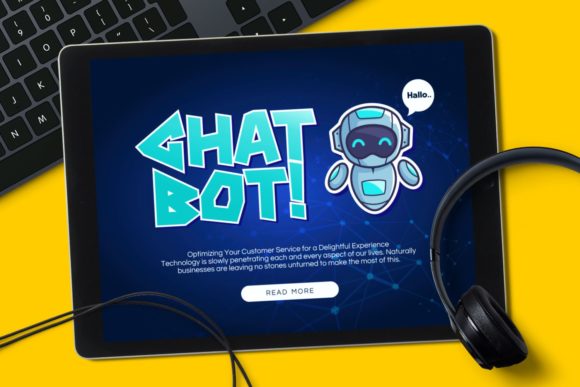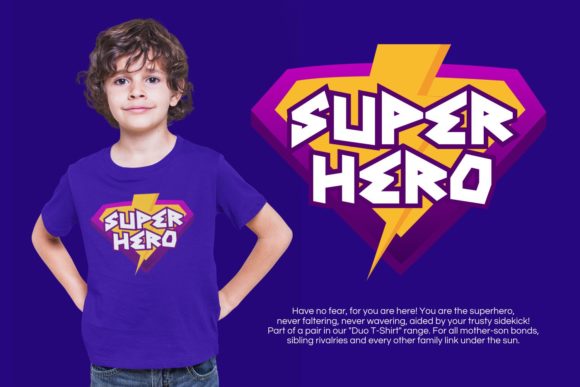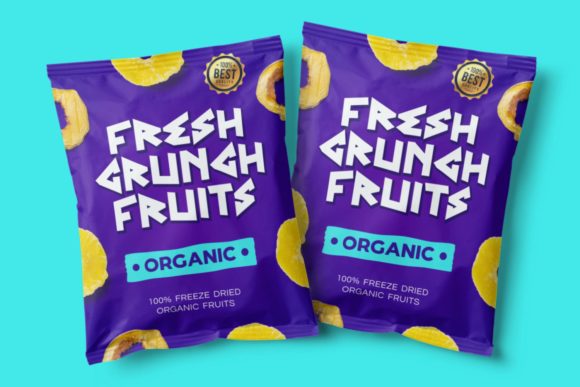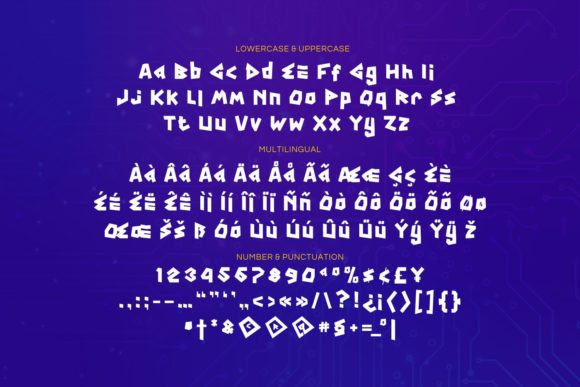
Introduction to Rhodas Font
As a designer, have you ever found yourself stuck in a creative rut, searching for the perfect font to bring your project to life? I know I have. That’s why I’m excited to share with you my latest discovery – the Rhodas Font. This chunky, bold display font is a game-changer for any designer looking to add a touch of whimsy and playfulness to their work.
Imagine a font that’s as fun as it is functional, with its cartoon-like charm and high-quality design making it a valuable asset for any creative project. Whether you’re working on a children’s book, a logo for a family-friendly business, or a design resource for a kid’s website, Rhodas Font is sure to be a hit.
Key Features of Rhodas Font
- High-quality vector font designed for creative projects, available for free download.
- Unique, hand-drawn design with a transparent background, ideal for use in various design resources.
- Includes a comprehensive character set with over 500 glyphs, covering multiple languages.
- Perfect for use in logos, branding, packaging, and other creative projects where a distinctive, handwritten font is required.
Honest Review: Rhodas Font
As a designer, I’m always on the lookout for high-quality design resources that can elevate my creative projects. Recently, I stumbled upon the Rhodas Font, and I must say, it’s been a great addition to my design arsenal.
- Unique and stylish design: Rhodas Font has a distinctive look that sets it apart from other fonts. Its clean lines and modern feel make it perfect for a variety of creative projects.
- Transparent background: The font’s transparent background makes it easy to use in various design scenarios, from logo design to graphic design.
The only downside I’ve noticed is that the font may not be suitable for all types of projects. Its modern and minimalist design might not be the best fit for more traditional or conservative designs.
Overall, I’m impressed with the Rhodas Font. Its unique design and free download make it a valuable design resource for designers. While it may not be suitable for all projects, I think it’s a great addition to any designer’s toolkit.
Rhodas Font is a versatile design resource that can be used in a variety of creative projects, such as logos, business cards, and brochures. It’s also a great resource for designers who want to create a unique and eye-catching design.
Is Rhodas Font a high-quality font?
Rhodas Font is designed to be a high-quality font, with a focus on readability and aesthetic appeal. The font features a clean and modern design, making it suitable for a wide range of creative projects, from logos and branding to digital products and print materials.